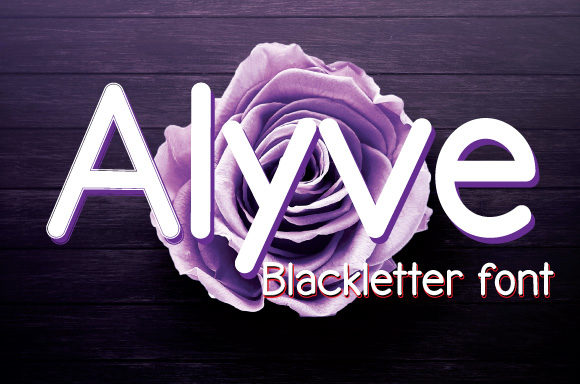
Alyve Font: The Simple and Clean Sans Serif Font for All Occasions
When it comes to choosing the right font for your design project, it can be overwhelming with the numerous options available. However, if you’re looking for a simple and clean sans serif font that can elevate your design, look no further than Alyve Font. In this article, we’ll dive into the features and benefits of Alyve Font, and why it’s becoming a favorite among designers.
What is Alyve Font?
Alyve Font is a sans serif font that exudes simplicity and cleanliness. Its straightforward design makes it an excellent choice for a wide range of projects, from branding and advertising to digital media and publishing. The font’s minimalist approach ensures that it doesn’t distract from the content, making it an ideal choice for designers who want to convey a clear message.
Key Features of Alyve Font
- Simple and Clean Design: Alyve Font boasts a simple and clean design that makes it easy to read and versatile for various design applications.
- Sans Serif: The font’s sans serif design gives it a modern and sleek look that’s perfect for digital media and contemporary designs.
- Wide Range of Uses: Alyve Font is suitable for a wide variety of designs, including branding, advertising, digital media, and publishing.
- Easy to Read: The font’s clear and concise design makes it easy to read, even at small sizes.
Benefits of Using Alyve Font
Alyve Font offers several benefits that make it an attractive choice for designers. Here are some of the advantages of using Alyve Font:
Why Choose Alyve Font?
- Versatility: Alyve Font’s simple and clean design makes it versatile for various design applications, from print to digital media.
- Legibility: The font’s clear and concise design ensures that your message is conveyed clearly, making it perfect for body text and headings.
- Modern Look: Alyve Font’s sans serif design gives it a modern and sleek look that’s perfect for contemporary designs.
- Easy to Pair: The font’s neutral design makes it easy to pair with other fonts, allowing you to create a unique and harmonious typography.
Who Can Benefit from Alyve Font?
Alyve Font is an excellent choice for various designers and businesses, including:
Who is Alyve Font for?
- Graphic Designers: Alyve Font is perfect for graphic designers who want a simple and clean font for their designs.
- Digital Media Professionals: The font’s modern and sleek design makes it an excellent choice for digital media professionals.
- Branding and Advertising Agencies: Alyve Font’s versatility and legibility make it an attractive choice for branding and advertising agencies.
- Small Businesses: Small businesses can benefit from Alyve Font’s simplicity and ease of use, making it perfect for their branding and marketing materials.
How to Use Alyve Font
Using Alyve Font is straightforward and easy. Here are some tips on how to get the most out of this versatile font:
Tips for Using Alyve Font
- Pair with Other Fonts: Alyve Font’s neutral design makes it easy to pair with other fonts, allowing you to create a unique and harmonious typography.
- Use for Body Text and Headings: The font’s clear and concise design makes it perfect for body text and headings.
- Experiment with Font Sizes: Alyve Font’s legibility ensures that it remains clear even at small sizes, making it perfect for a wide range of design applications.
In conclusion, Alyve Font is a simple and clean sans serif font that’s perfect for a wide range of design applications. Its versatility, legibility, and modern look make it an attractive choice for designers and businesses. Whether you’re a graphic designer, digital media professional, or small business owner, Alyve Font is an excellent choice for your design needs.
Why Alyve Font Will Become Your Go-To Font
Alyve Font’s simplicity, cleanliness, and versatility make it an excellent choice for designers who want a reliable and modern font for their designs. With its ease of use and wide range of applications, Alyve Font has the potential to become your favorite go-to font, no matter the occasion.